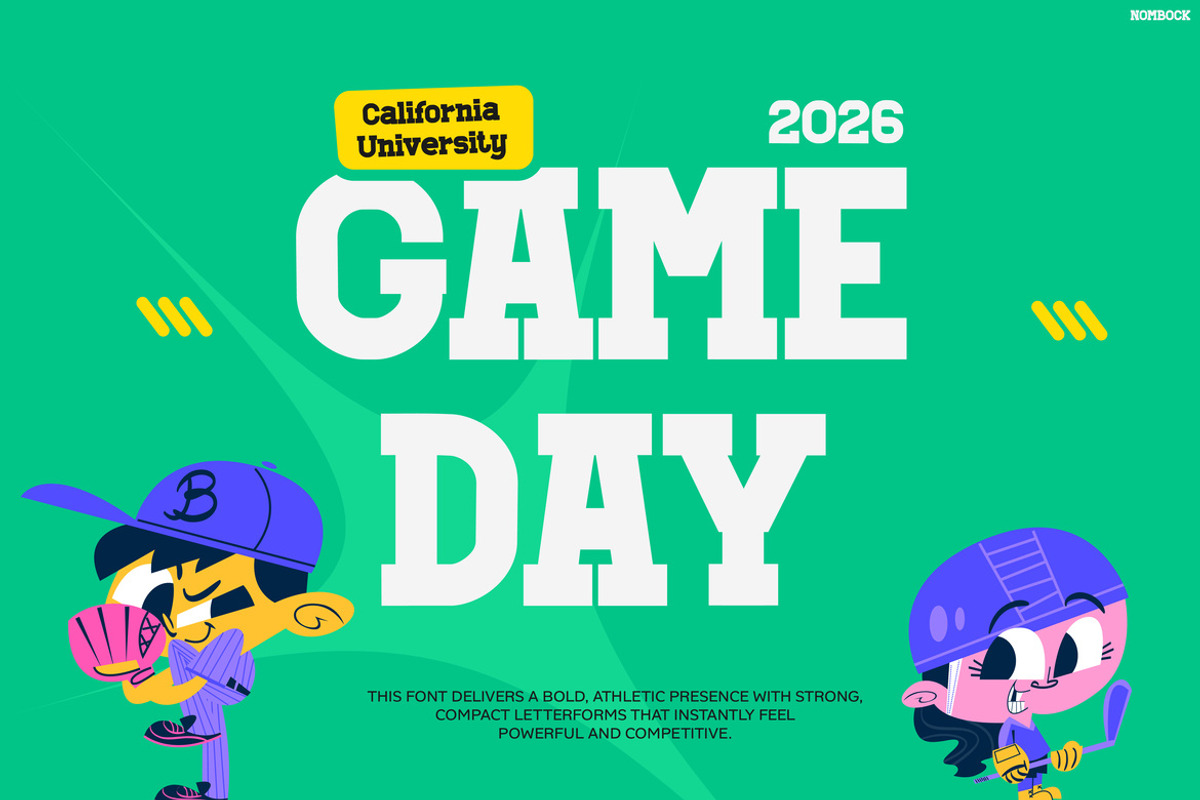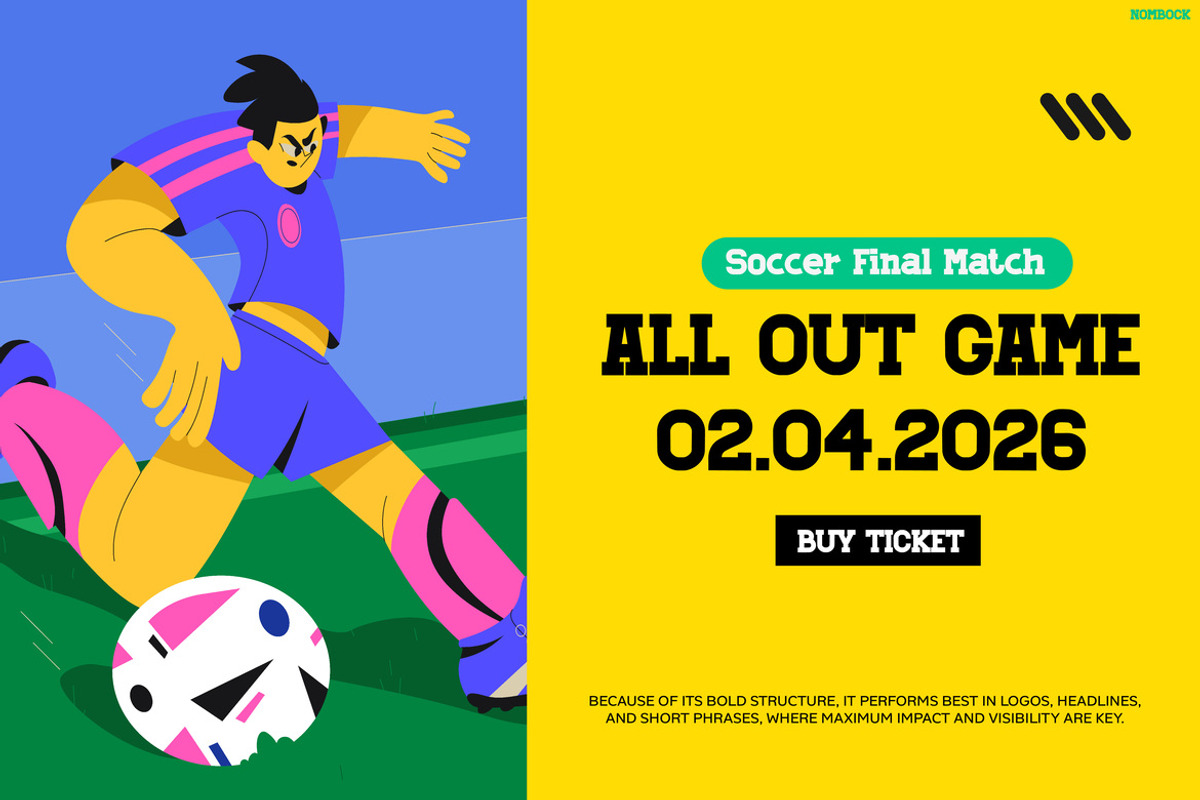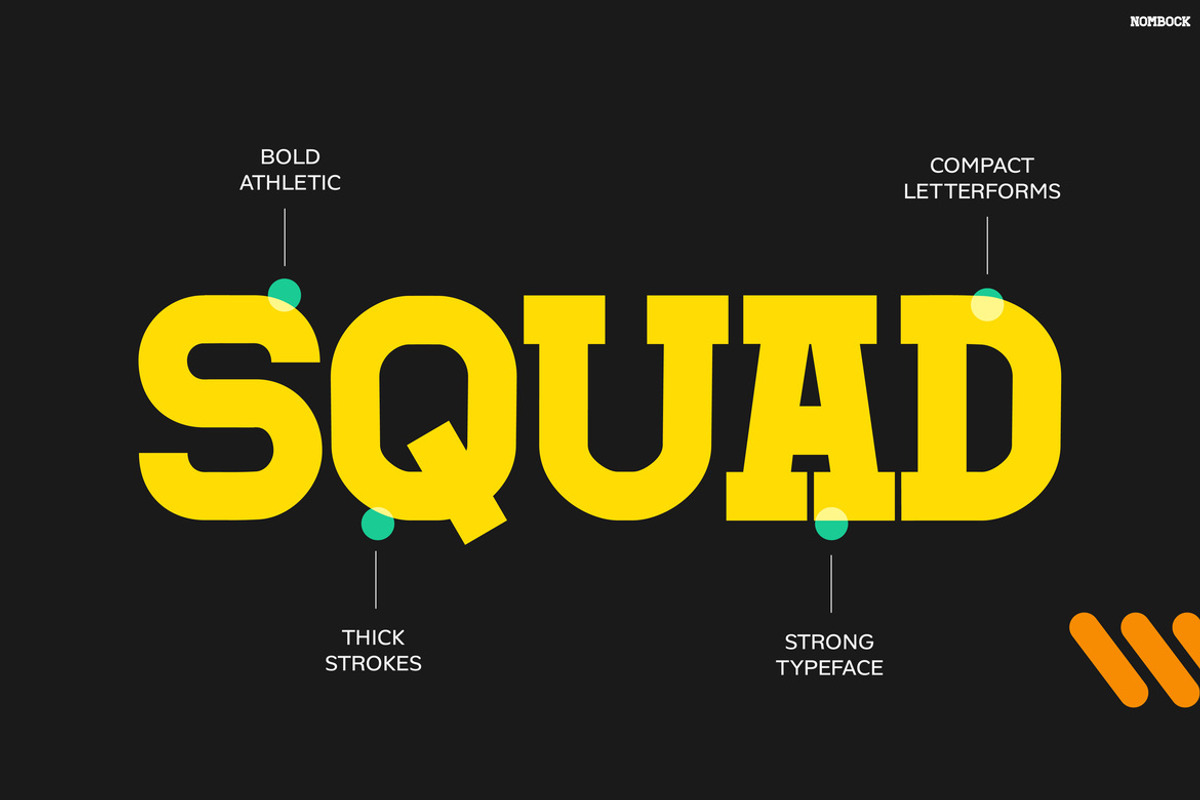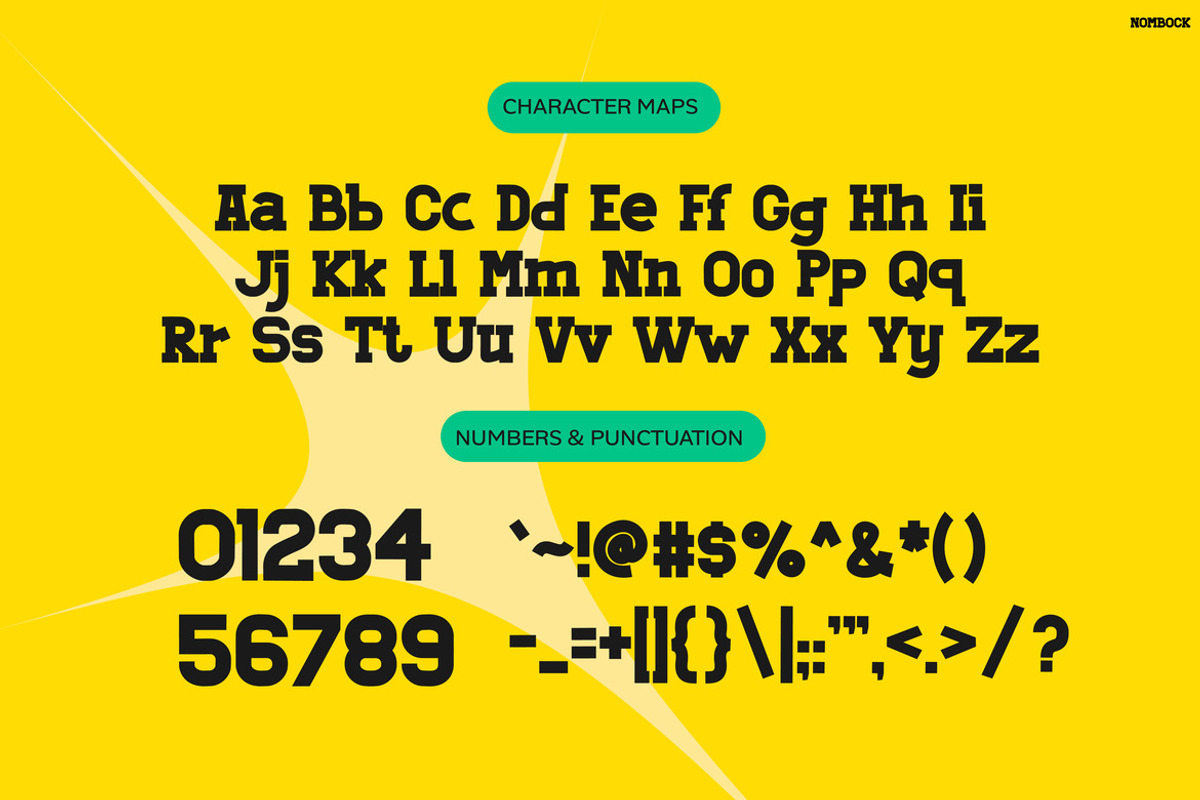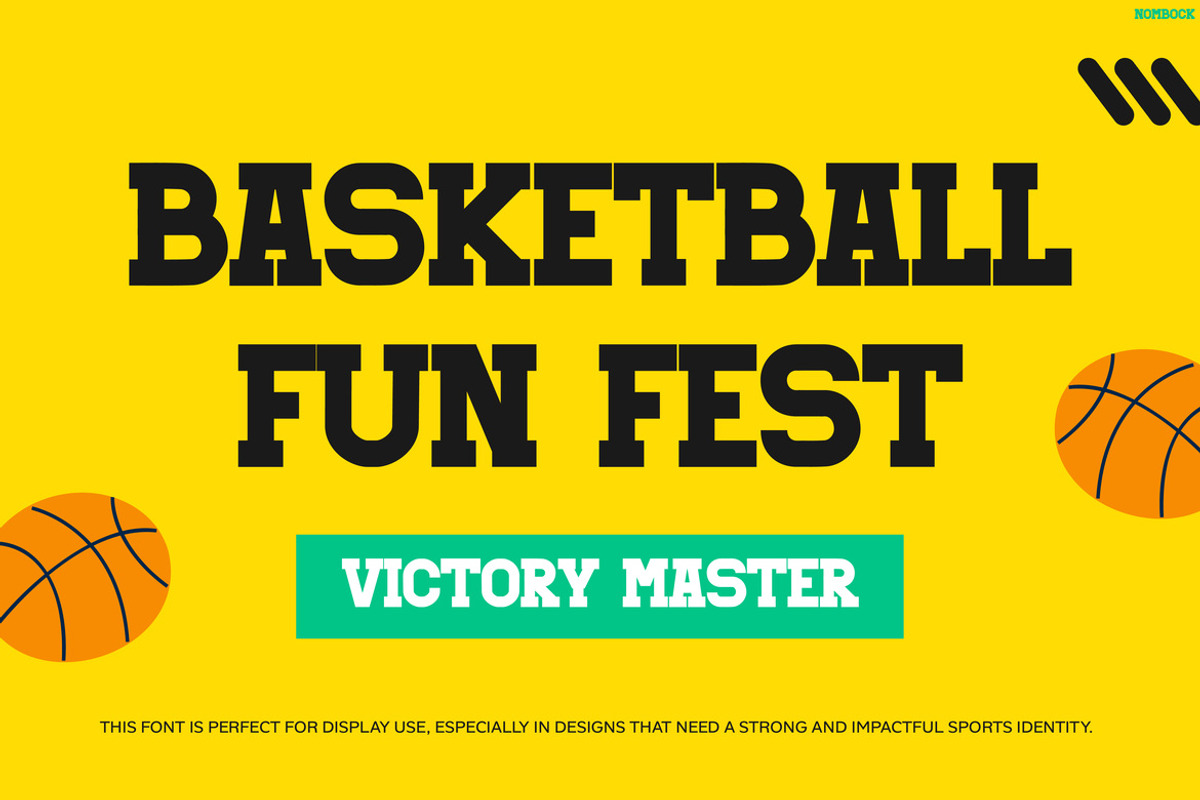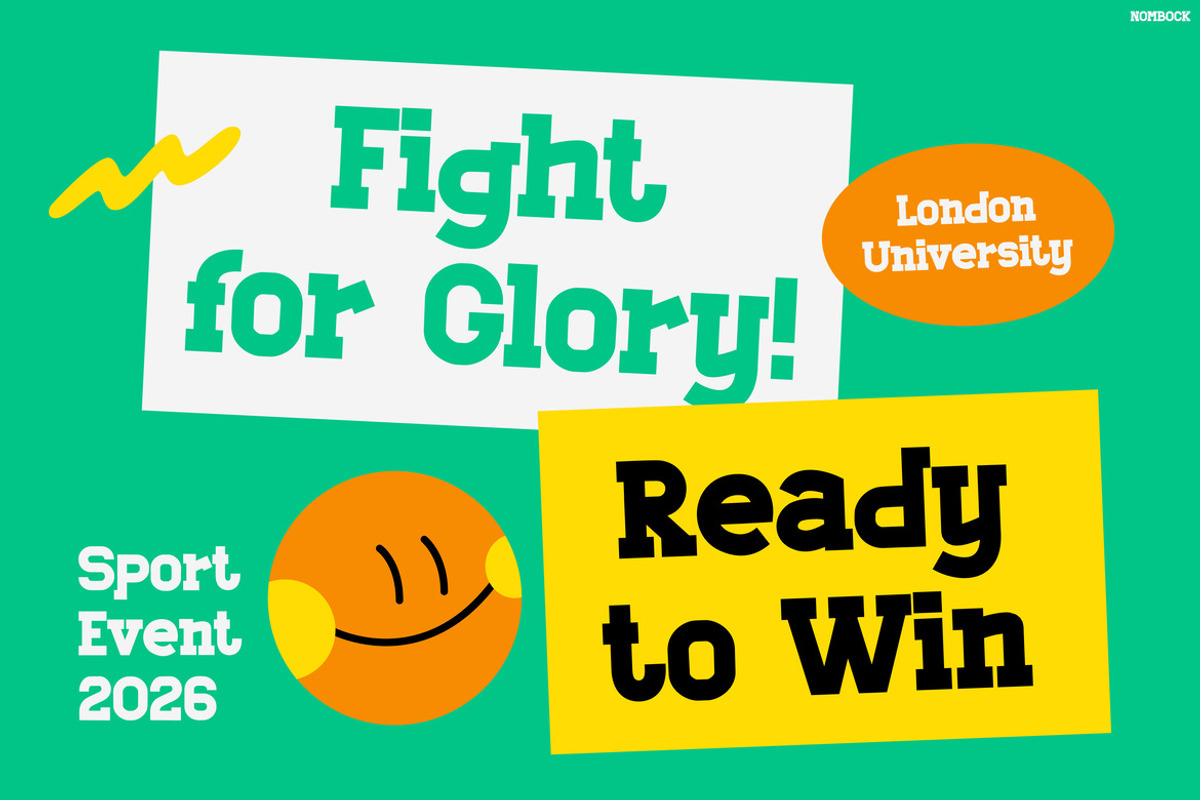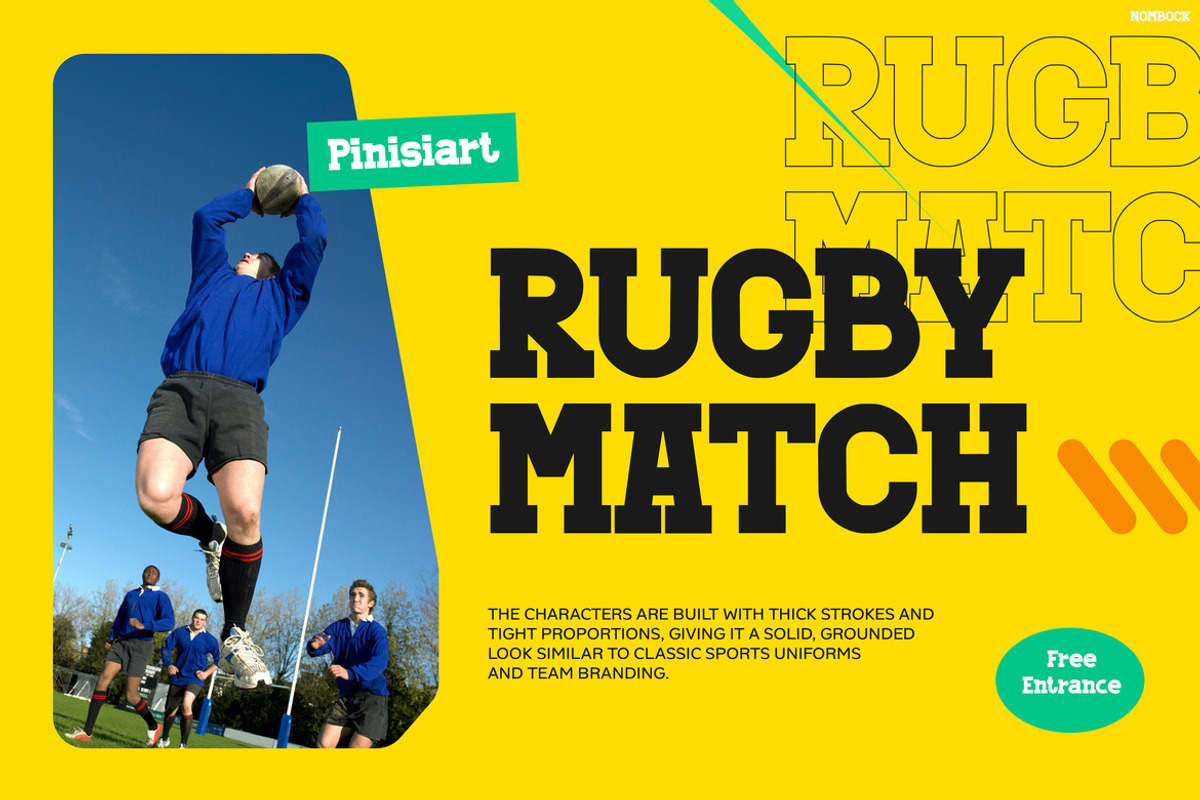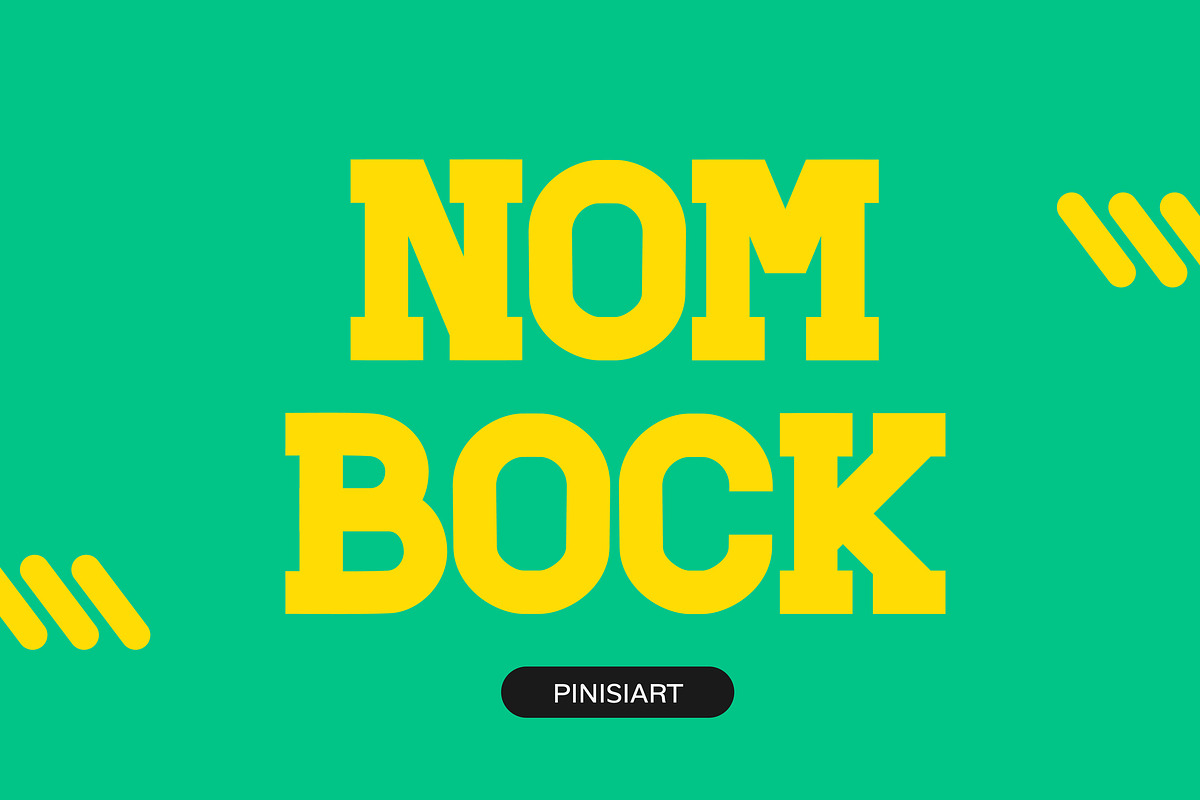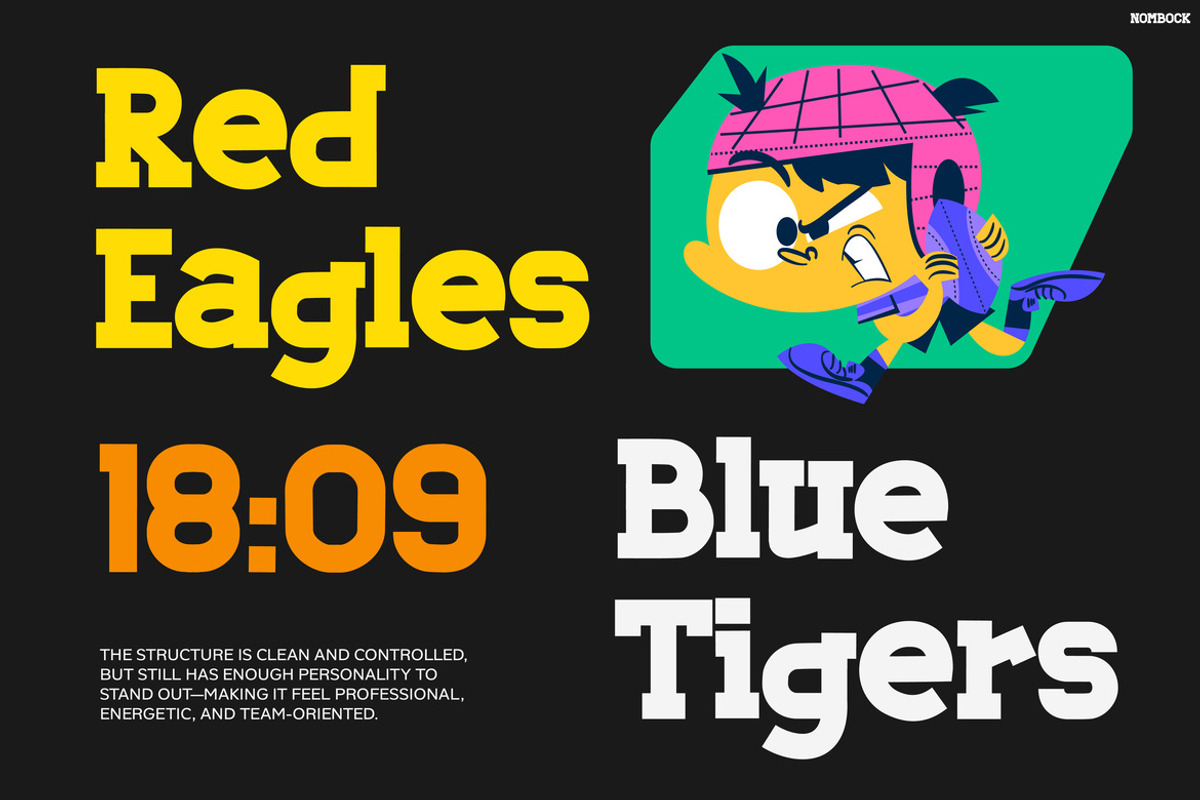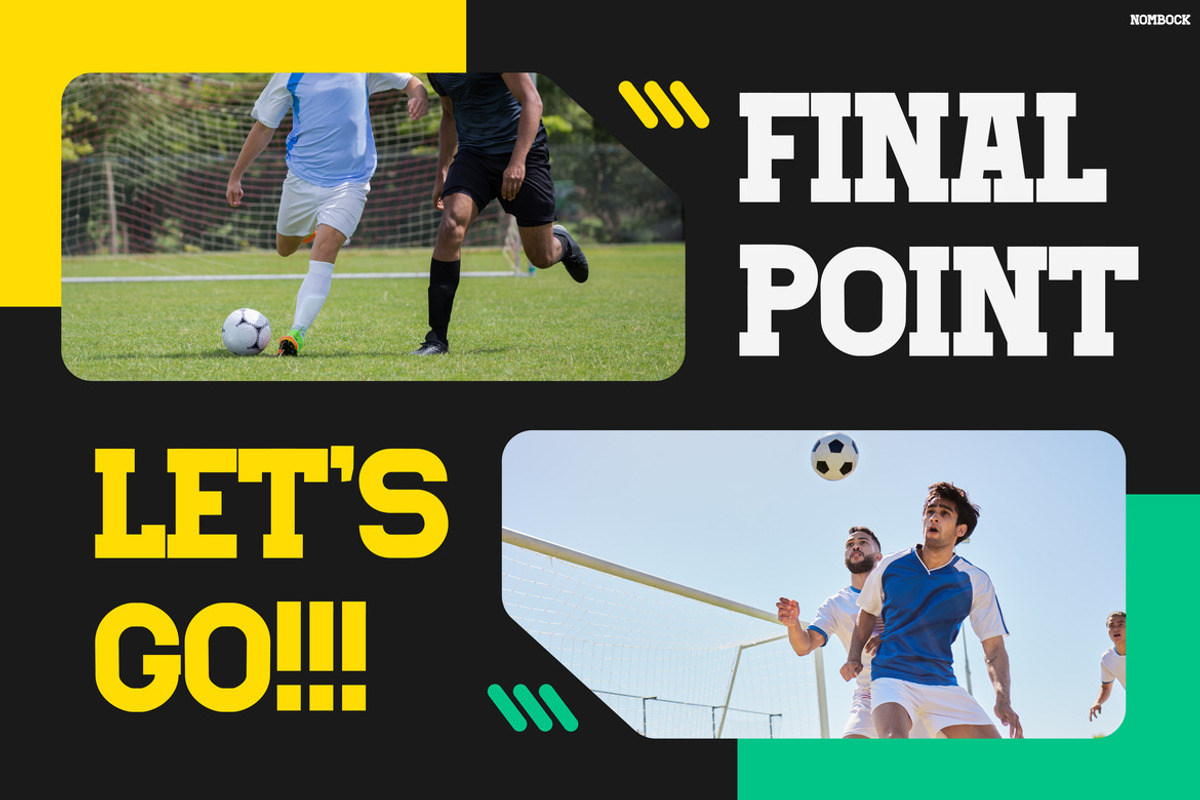
NOMBOCK
NOMBOCK – Bold Sport Display Font for Powerful Visual Impact
Sport Font NOMBOCK brings energy and strength straight into your designs. Moreover, its sharp edges and solid shapes create a powerful visual impact. At the same time, the sporty style feels modern, clean, and highly versatile. Because of this, your text stays clear and easy to read in any layout. As a result, your headlines instantly stand out and grab attention. Whether you design for print or digital use, NOMBOCK helps you deliver bold messages with confidence and style.
NOMBOCK delivers high-impact visuals for a wide range of creative projects. In addition, its bold characters fit smoothly into many layouts without losing clarity. For example, you can apply it to posters, branding, merchandise, or digital content. Furthermore, balanced spacing keeps your design neat and consistent across different formats. Not only that, but the strong letterforms also highlight key messages clearly and effectively. Because of its bold presence, your content becomes more engaging and easier to remember.
Additionally, NOMBOCK adapts well to both large headlines and medium-sized text. This flexibility allows you to maintain a consistent visual identity across multiple platforms. Meanwhile, its sporty character adds energy and movement to your designs. Therefore, you can create visuals that feel alive, dynamic, and full of impact.